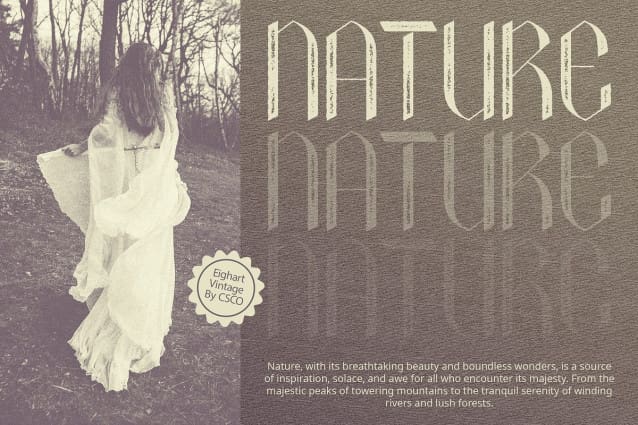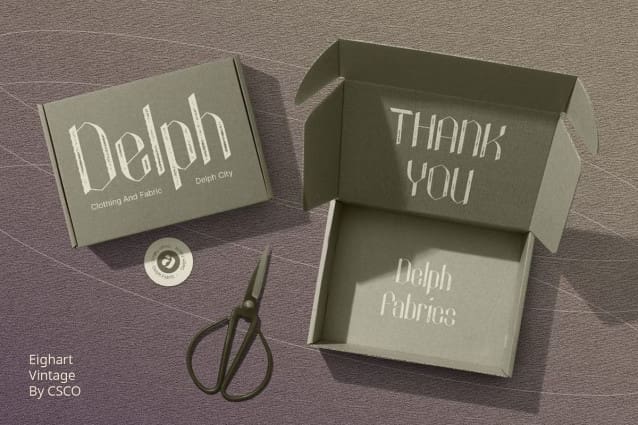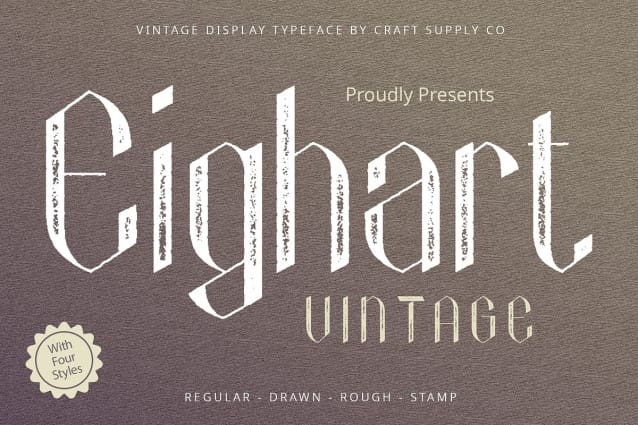
Eighart Vintage Font
Eighart Vintage Font: Retro Charm with Unique Flair.  High Contrast and Unique Shape Eighart Vintage boasts high contrast and a distinctive shape, ensuring maximum visibility and impact in any display setting. Its unique design stands out from the crowd, commanding attention effortlessly.
Rough Stamp Drawn Effect The font features a rough stamp drawn effect, adding a vintage touch to its appearance. Each character exudes a sense of authenticity and nostalgia, reminiscent of handcrafted designs from yesteryears.
Vintage Appeal with Modern Twist This font seamlessly combines vintage appeal with a modern twist. Its high contrast and unique shape infuse contemporary flair into retro aesthetics, making it a versatile choice for various design projects.
Versatile Application Despite its vintage-inspired look, This font is incredibly versatile. Whether used for branding, posters, packaging, or social media graphics, its distinctiveness adds character and charm to any design endeavor.
Embrace Retro Chic This font offers a perfect blend of vintage charm and contemporary style. Its high contrast, unique shape, and rough stamp drawn effect make it an ideal choice for designers seeking to evoke nostalgia and add a touch of retro flair to their creations. Dive into the past with Eighart Vintage and elevate your designs with its timeless appeal.